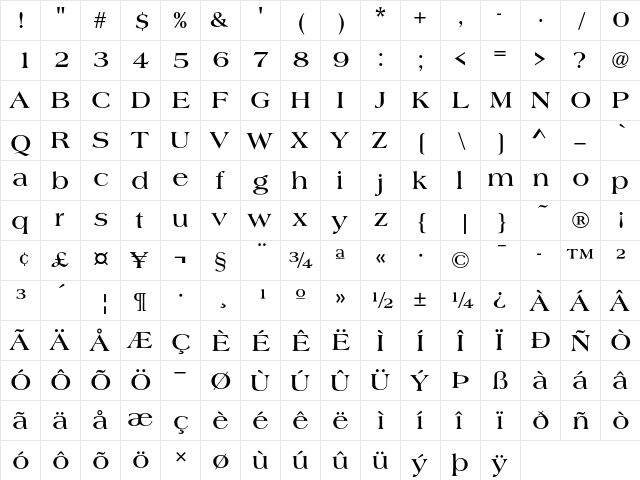
Americana T Bold
Design Context for Americana T Typeface
Americana T takes a measured approach to typography — its balanced proportions and neutral character make it a reliable workhorse for both digital and print work. Its bold stroke weight gives it real presence on the page.
Pro Tip: Pair Americana T with a font of contrasting weight or personality to build a more expressive typographic hierarchy.